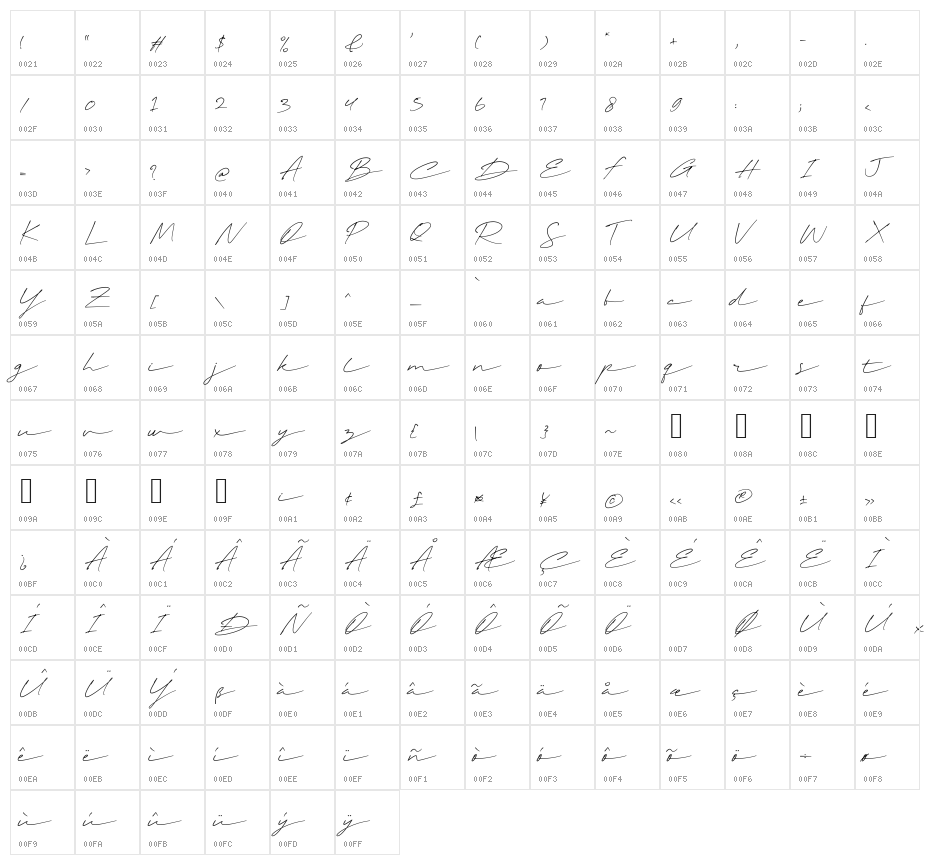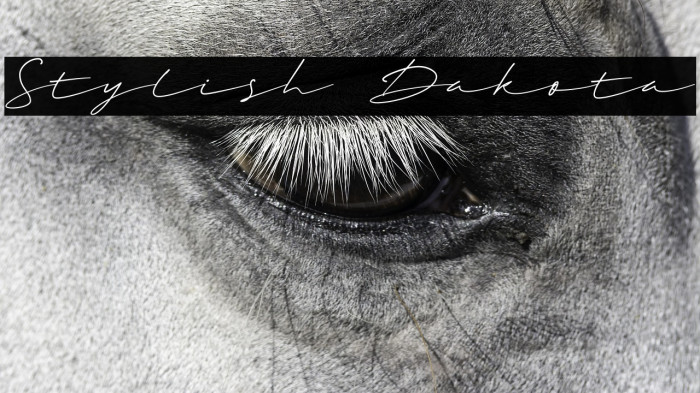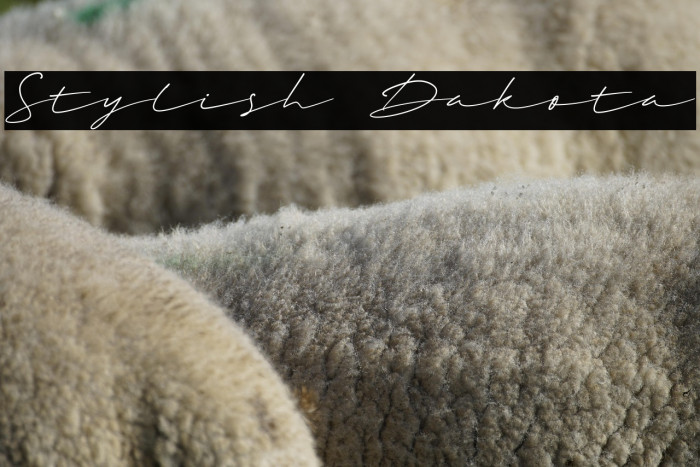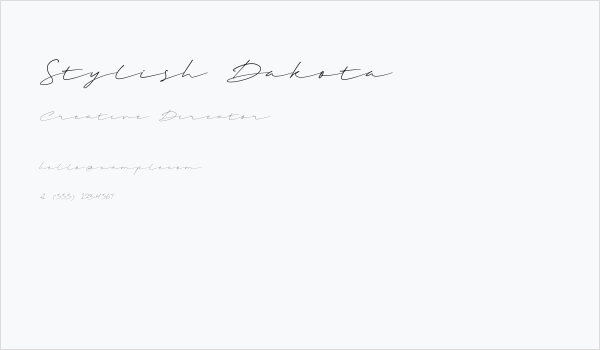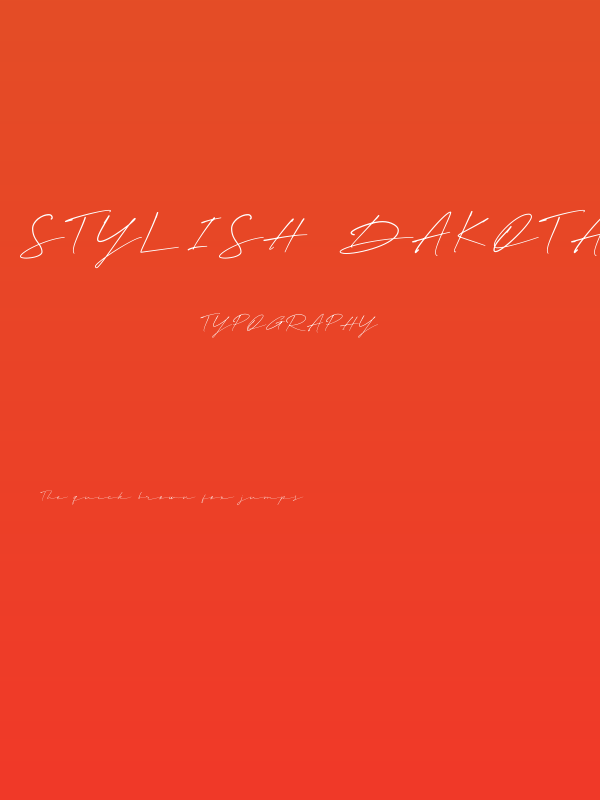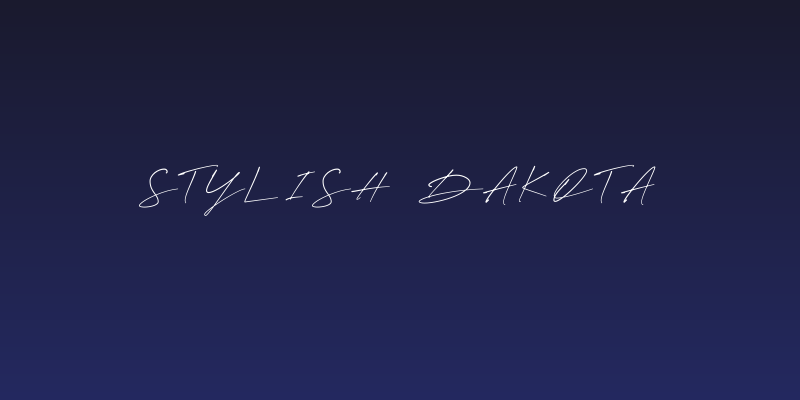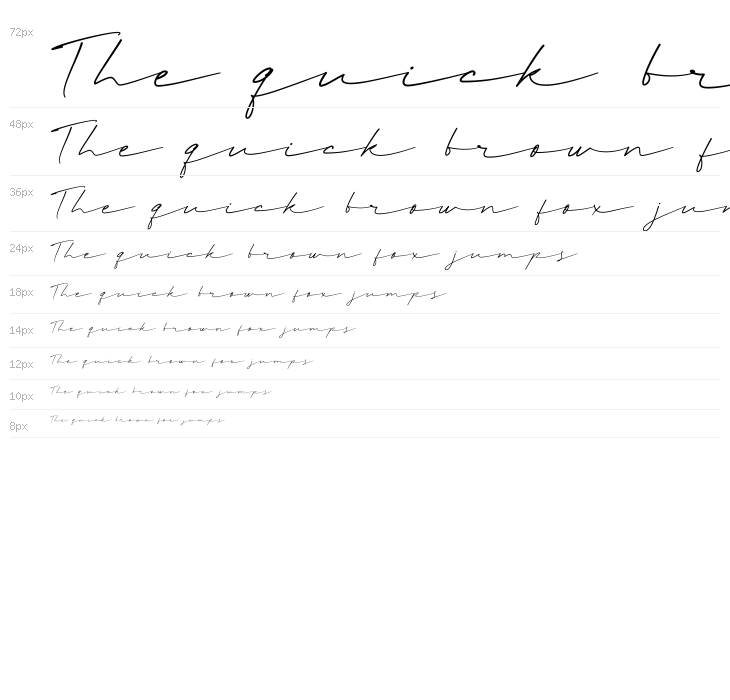
Stylish Dakota Font
Stylish Dakota Description
A flowing, handwritten script font with thin, delicate strokes and a natural, cursive style. The characters are loosely connected, giving an informal and personal feel. The overall appearance is airy and elegant, with long ascenders and descenders.
| Overall Style | Decorative, Casual, Elegant |
| Use Case | Logos, Invitations, Greeting cards, Social media posts |
| Proposed Projects | Invitations, personal branding, greeting cards, quotes, social media graphics. |